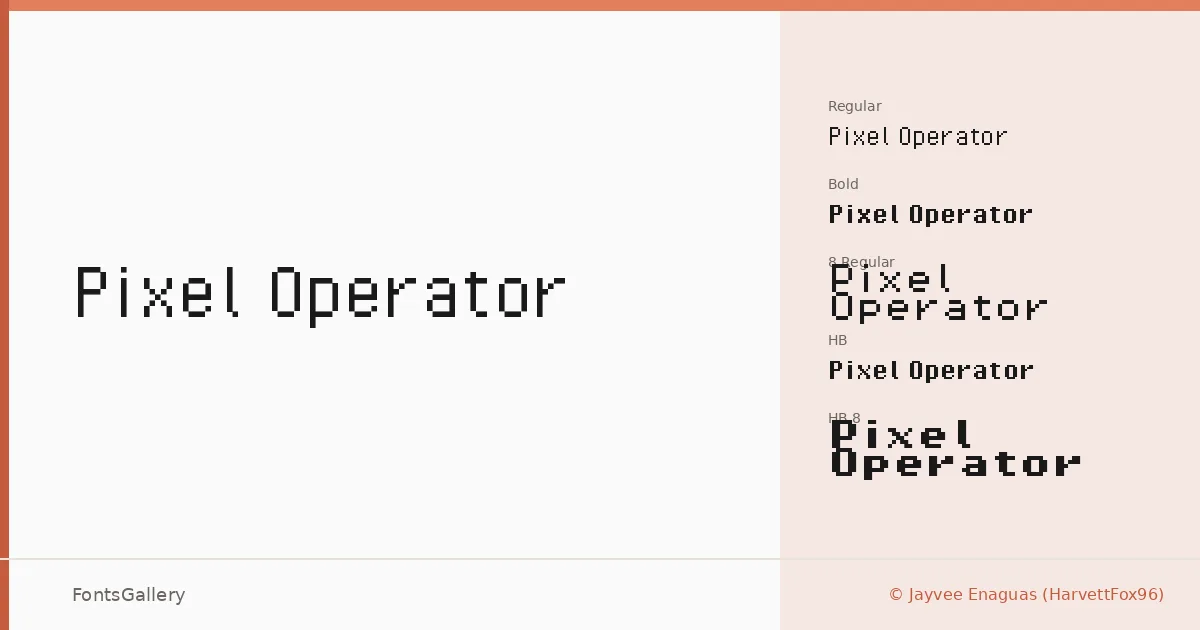
About Pixel Operator Font
There is something immediately satisfying about a bitmap-rooted typeface that holds its grid discipline at every size — and that is exactly what Jayvee Enaguas (HarvettFox96) has built here. Drawn on a pixel grid and released under Creative Commons Zero (CC0) 1.0, the family carries the honest, undecorated character of terminal type while remaining thoroughly legible in Latin-script settings. The strokes are crisp, the spacing is deliberate, and nothing is wasted.
This is a monospace family in every sense — fixed-width columns, even rhythm, and a futuristic minimalism that reads as modern without trying too hard. The family spans a genuinely broad system: proportional cuts alongside true monospaced variants, small-caps alternates (SC), heavy-bold companions (HB), and dedicated 8-pixel subfamilies, all available in Regular and Bold weights, delivered as TTF files. The 8-pixel variants are the most strictly grid-locked, while the standard and HB cuts allow a little more room to breathe. Small-caps variants lend a quieter formality to the same geometric skeleton.
The family earns its keep in contexts that call for a sharp, technical presence — website headers, poster compositions, social media graphics, and T-shirt design all sit naturally within its range, and the bold cuts do real work in branding where a futuristic, minimal voice is the point. For Latin-script projects, the coverage is solid. Paired with the geometric warmth of Canela, the neutral utility of Helvetica or Aileron, the editorial tone of ABC Arizona, or the constructed precision of Abrade, it anchors a hierarchy without competing for attention.